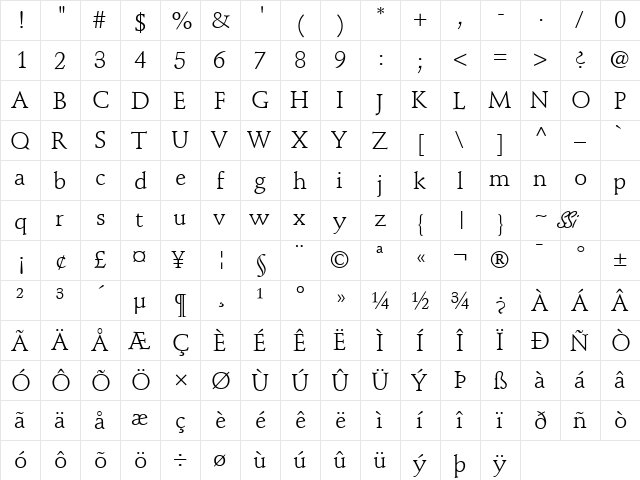
Deutch SSi Regular
Design Context for Deutch SSi Typeface
Deutch SSi is a composed and adaptable typeface that performs quietly and consistently across a wide range of design contexts.